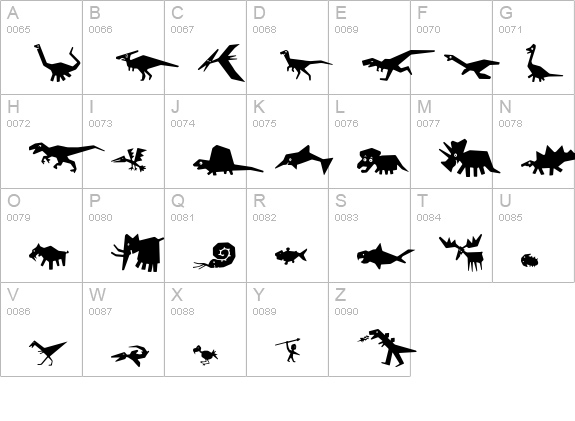
P22Prehistoric-Pals Font Details
P22 Prehistoric-Pals font takes you on an exhilarating journey back in time to the enchanting era of prehistoric creatures. With its playful and whimsical design, this font brings to life the charm and innocence of the dinosaurs and their pals. Each letter is expertly crafted to resemble the distinct features of these ancient creatures, from the sharp teeth of the T-Rex to the long neck of the Brachiosaurus. This font is perfect for capturing the attention of children and adults alike, making it ideal for a wide range of creative projects. Whether you are designing a children's book, creating educational materials, or adding a touch of nostalgia to your designs, P22 Prehistoric-Pals font will surely bring a smile to your face. And the best part? P22 Prehistoric-Pals font is free! That's right, you can freely download this amazing font at FontsMarket.com. Embrace the opportunity to infuse your projects with the captivating charm of prehistory, and let your imagination run wild with the endless possibilities this font offers. So don't wait any longer, unleash your creativity and embark on an adventure with P22 Prehistoric-Pals font. Download it for free at FontsMarket.com and let your designs roar with excitement!